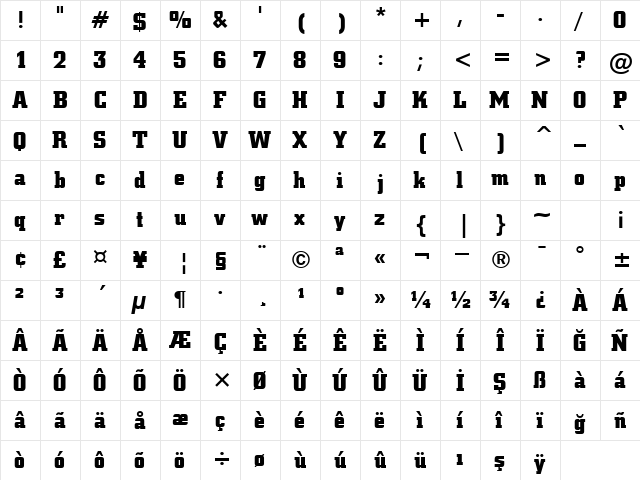
00414 Regular
Design Context for 00414 Typeface
00414 takes a measured approach to typography — its balanced proportions and neutral character make it a reliable workhorse for both digital and print work.